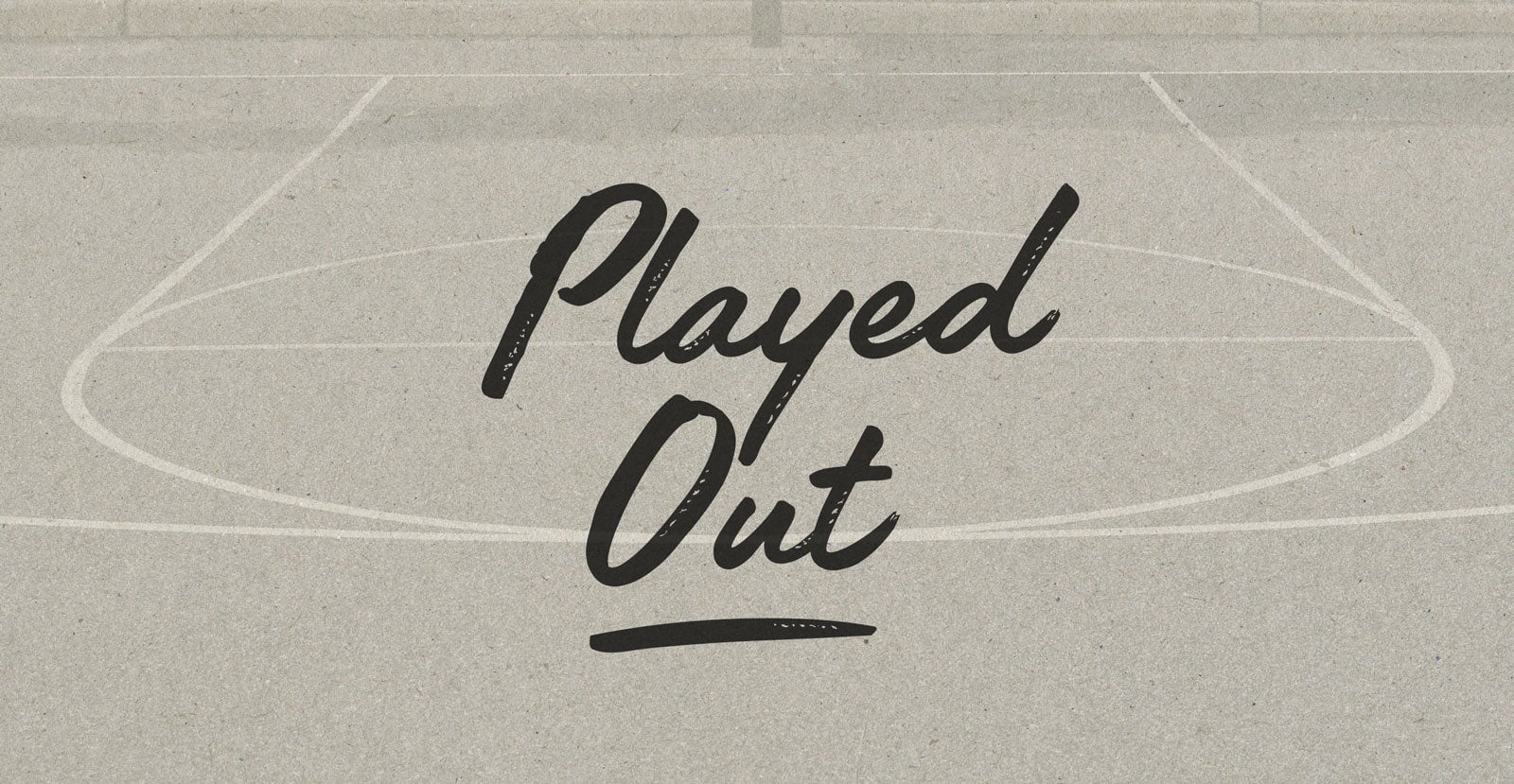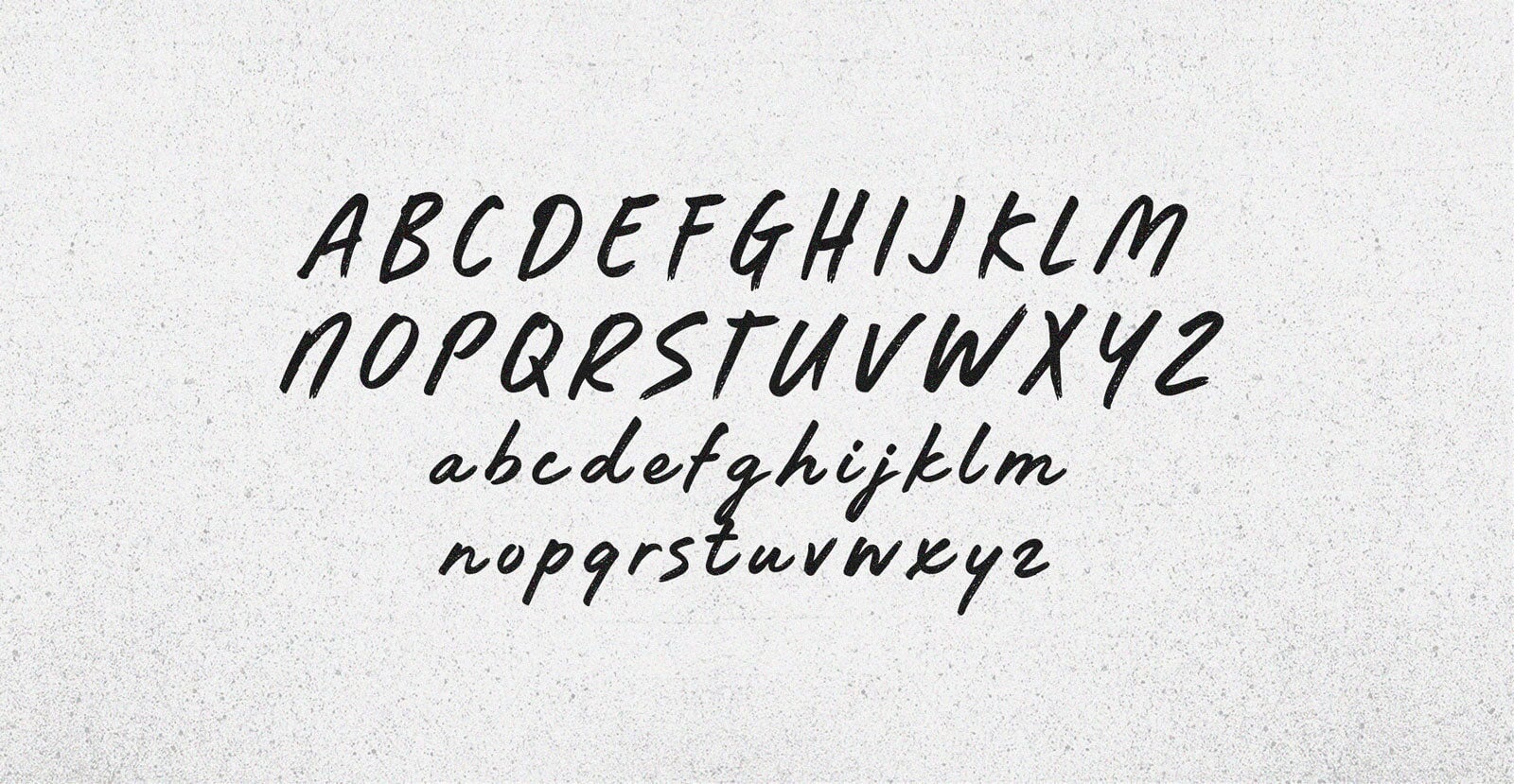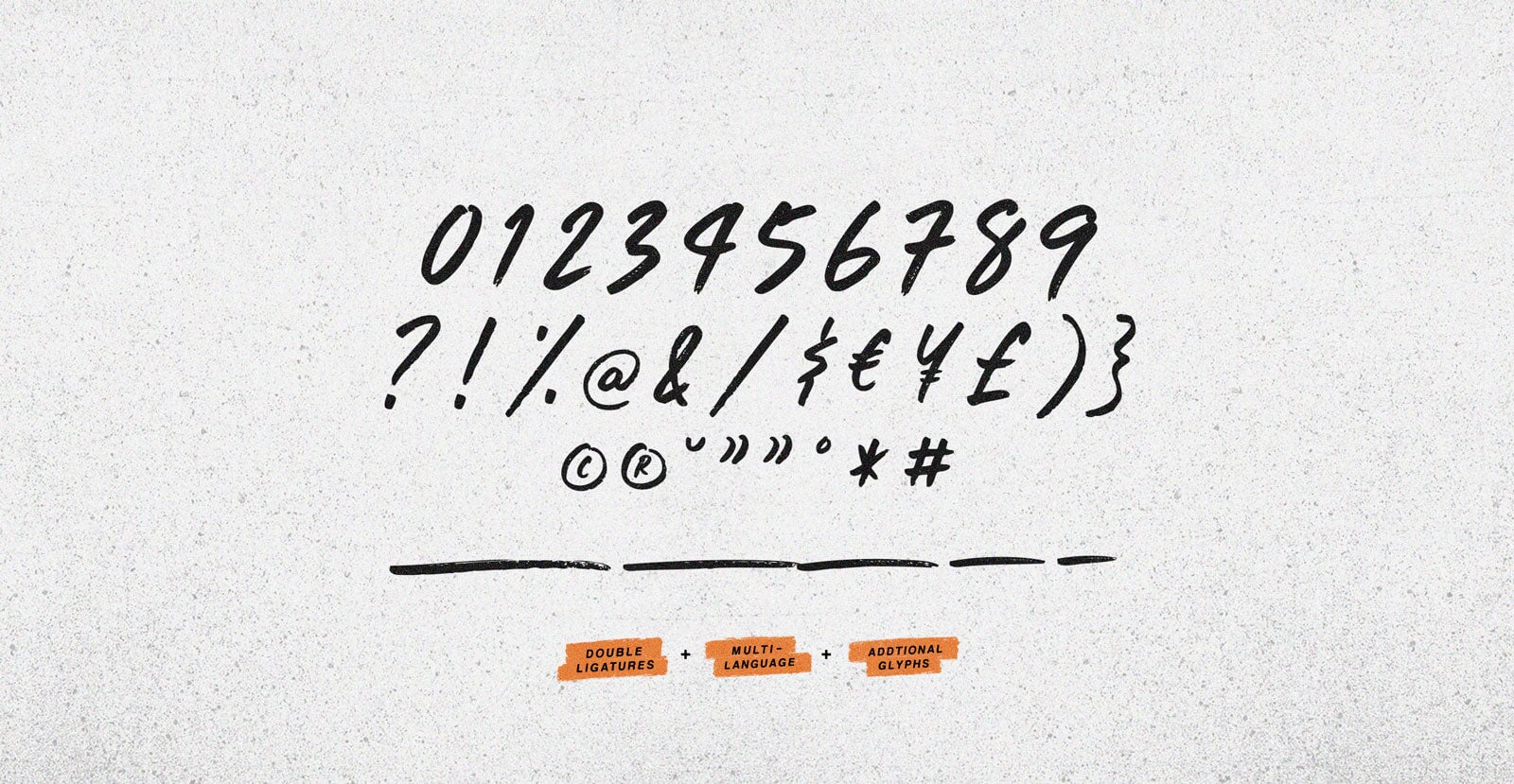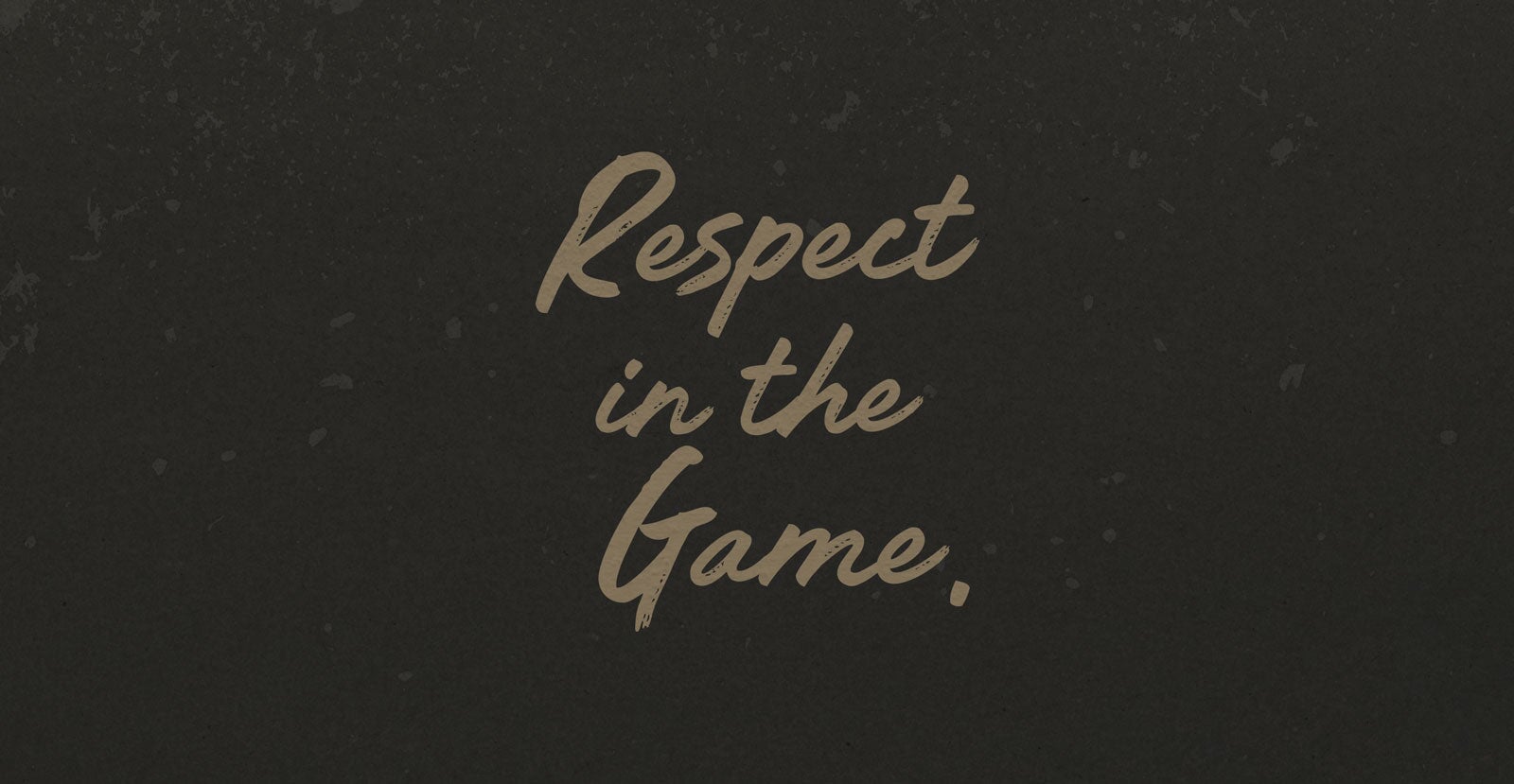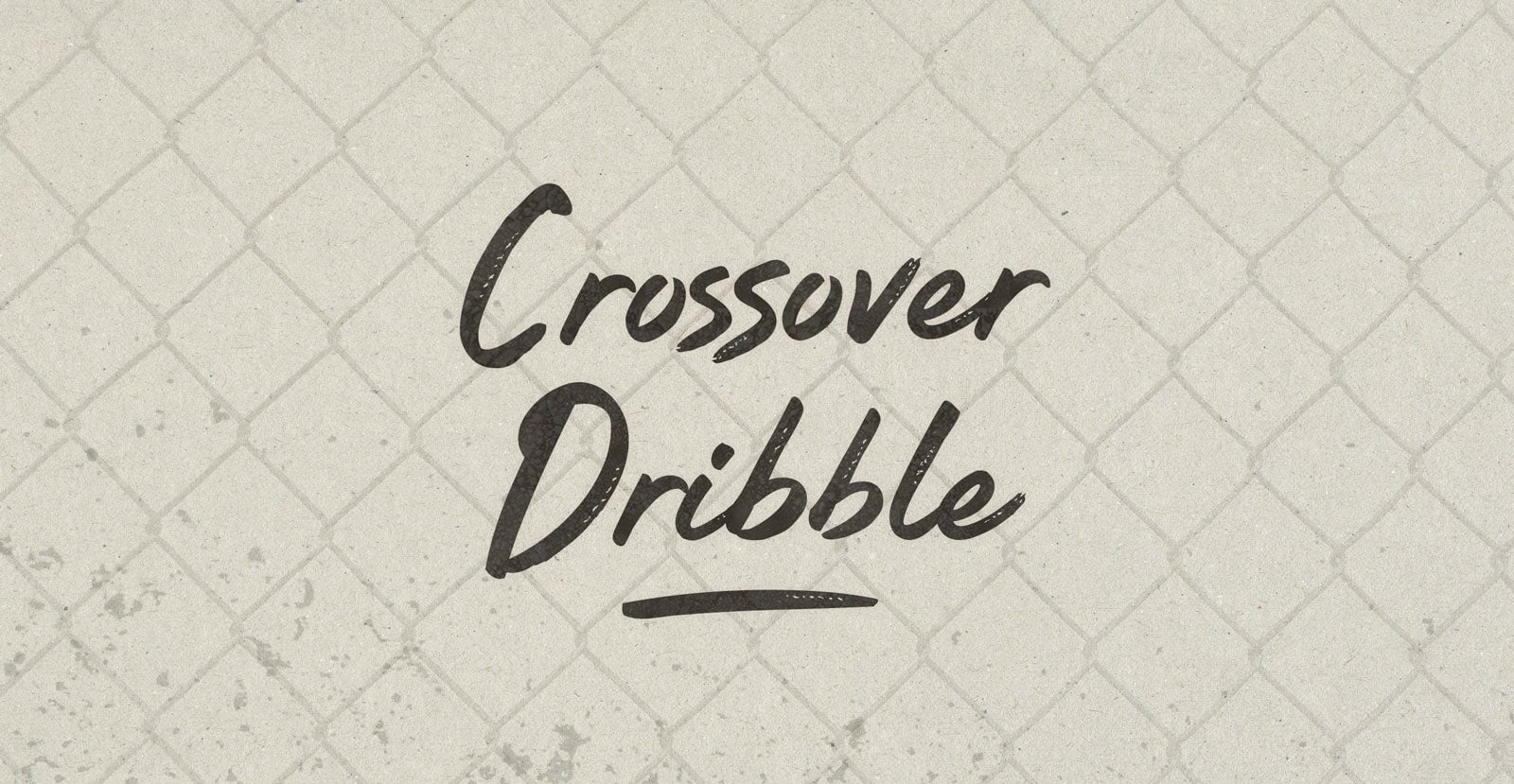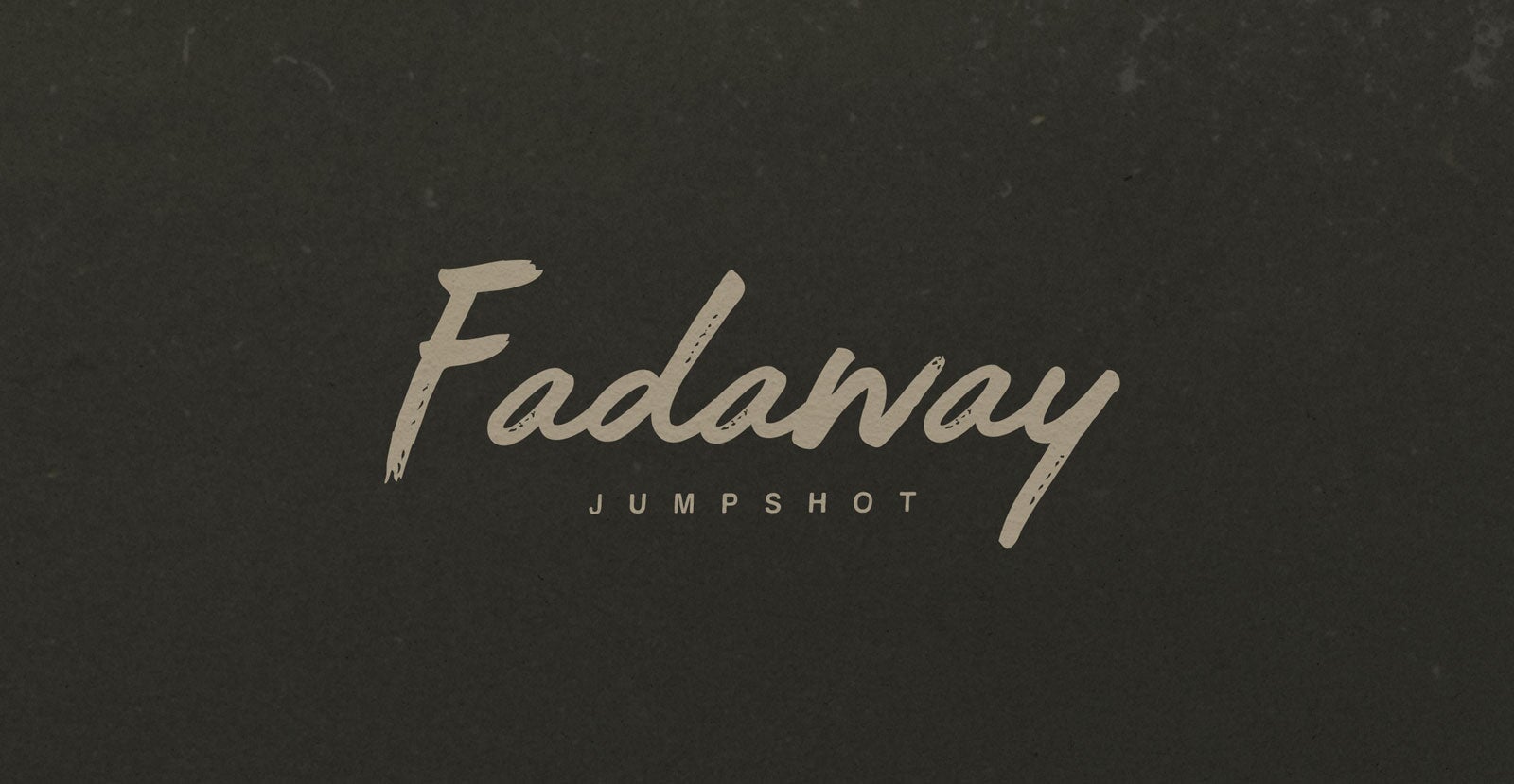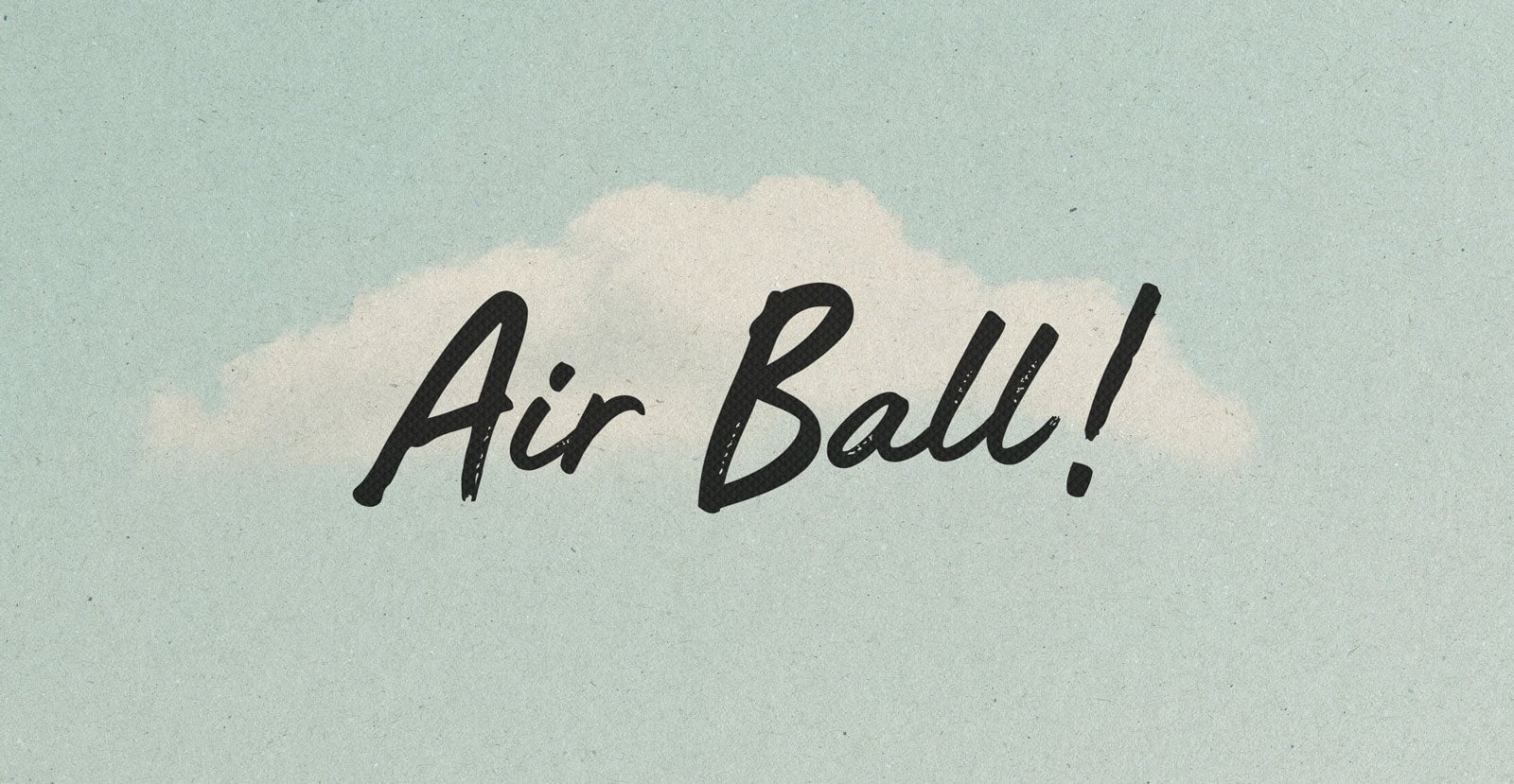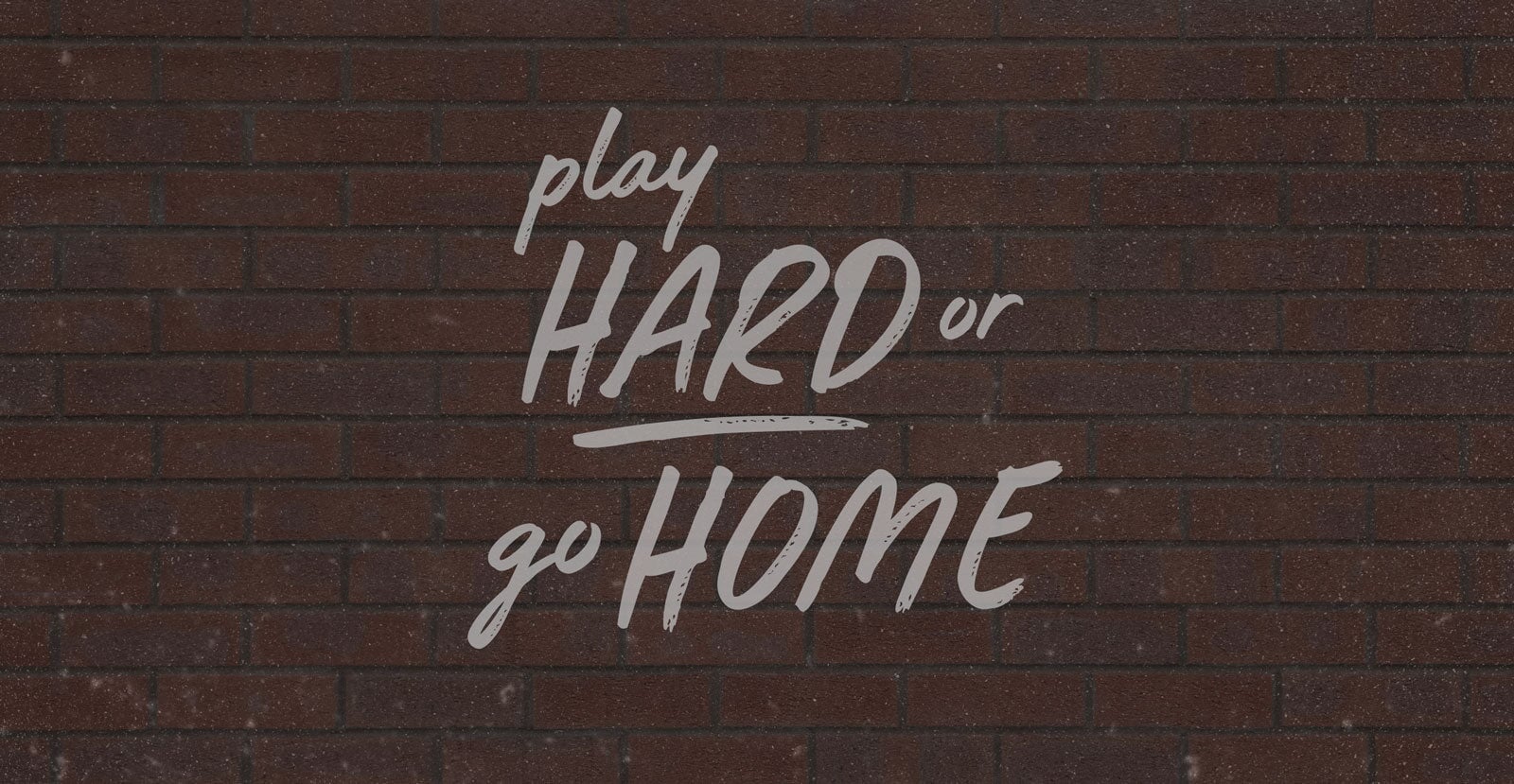
Played Out
Played Out wears its cracks, weathered and still standing. It loops the same line, but with a different weight each time. Familiar, but never quite the same.